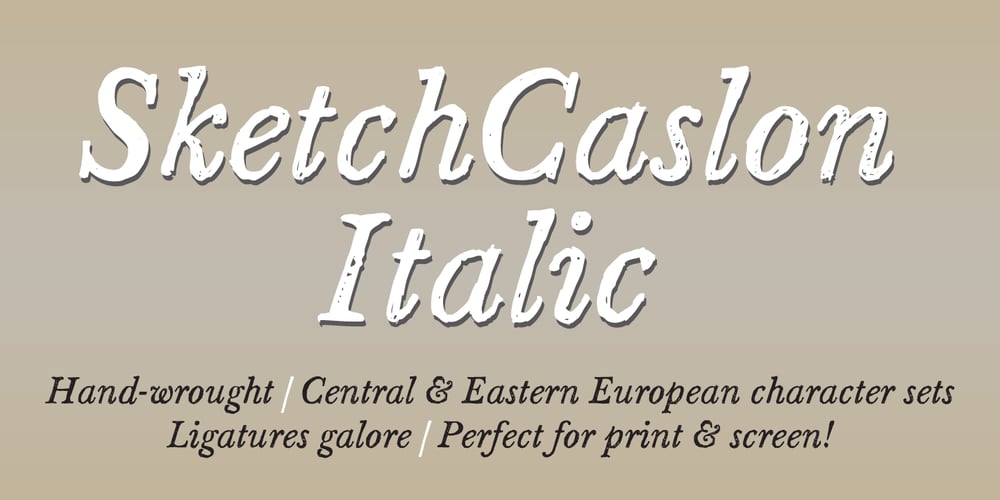
Sketch Caslon Italic Font Family was designed by Ian Lynam and published by Wordshape. Sketch Caslon Italic contains 1 styles and family package options. SketchCaslon Italic is a hand-rendered display typeface with its formal base in the structure of the types of William Caslon.